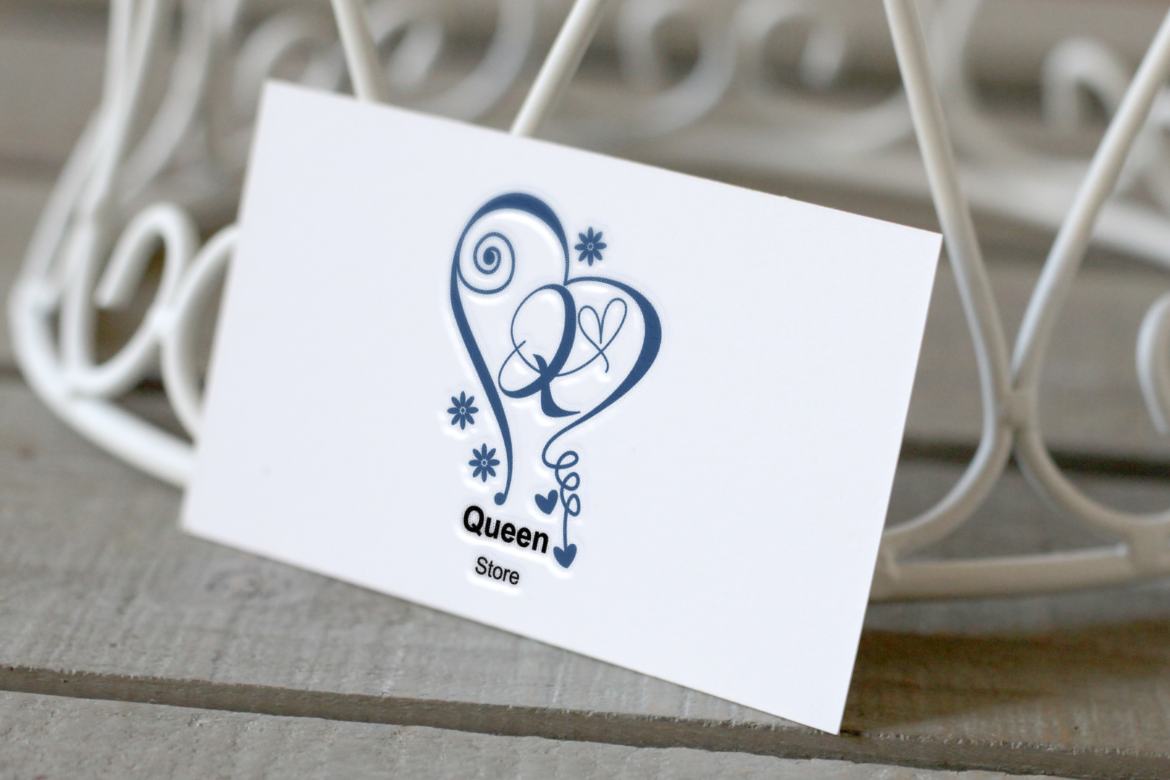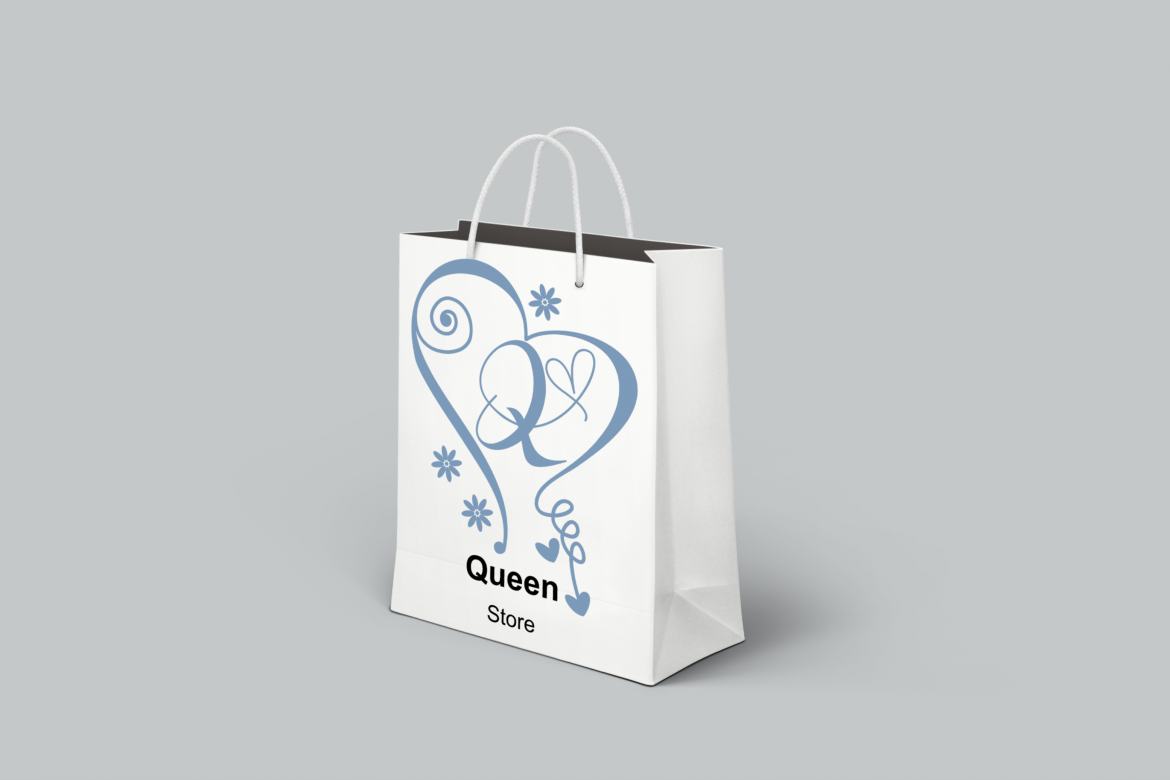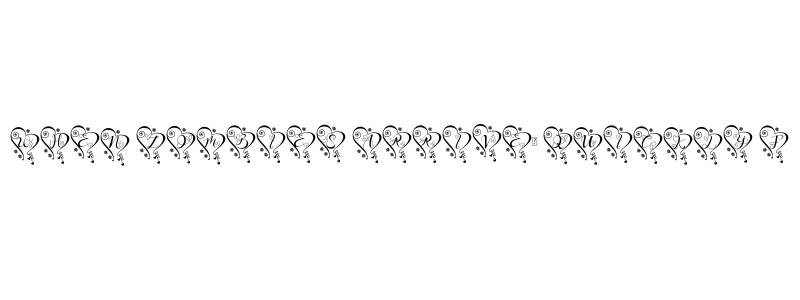
Sweety Monogram
Sweety Monogram is an elegant and dainty handwritten monogram font that features sweet and delicate swashes. This original look will appeal to a wide range of crafty ideas, from letterheads and titles, to stationery.
• 1 set monogram uppercase and lower case a-z
• beautiful monogram design